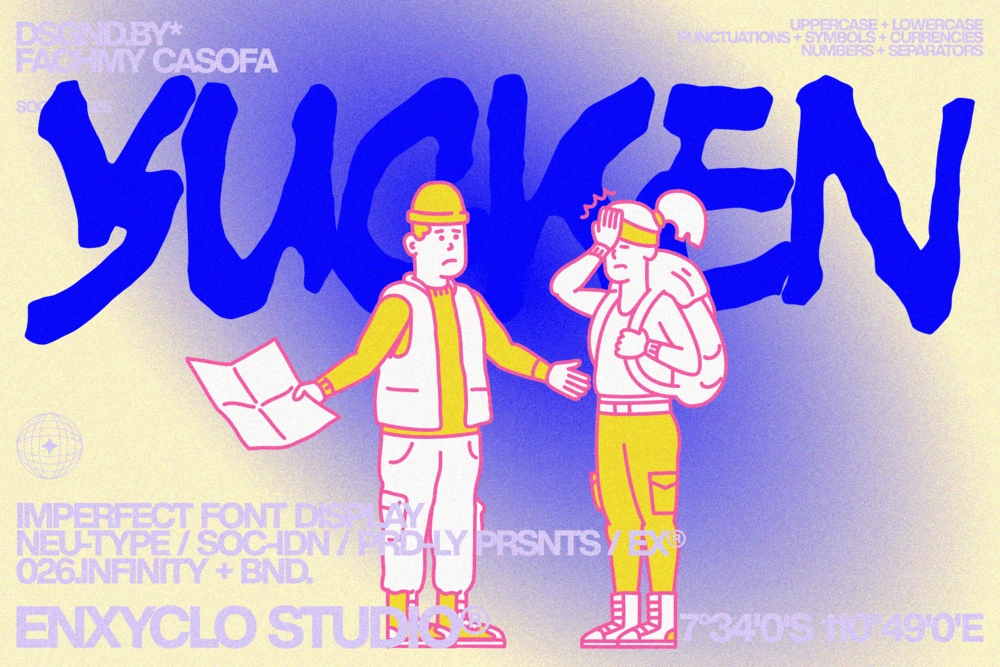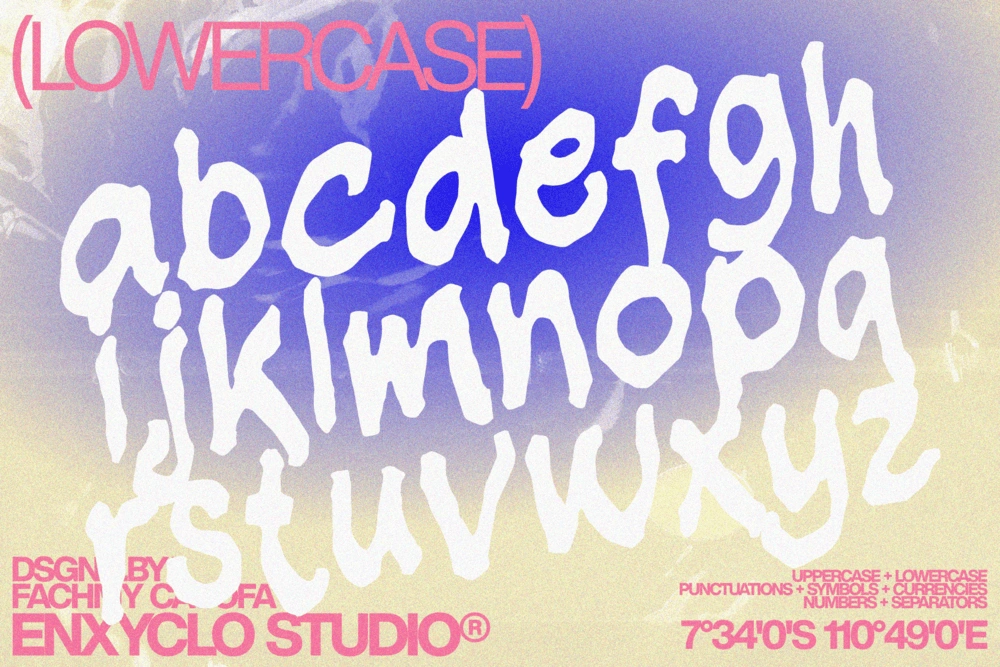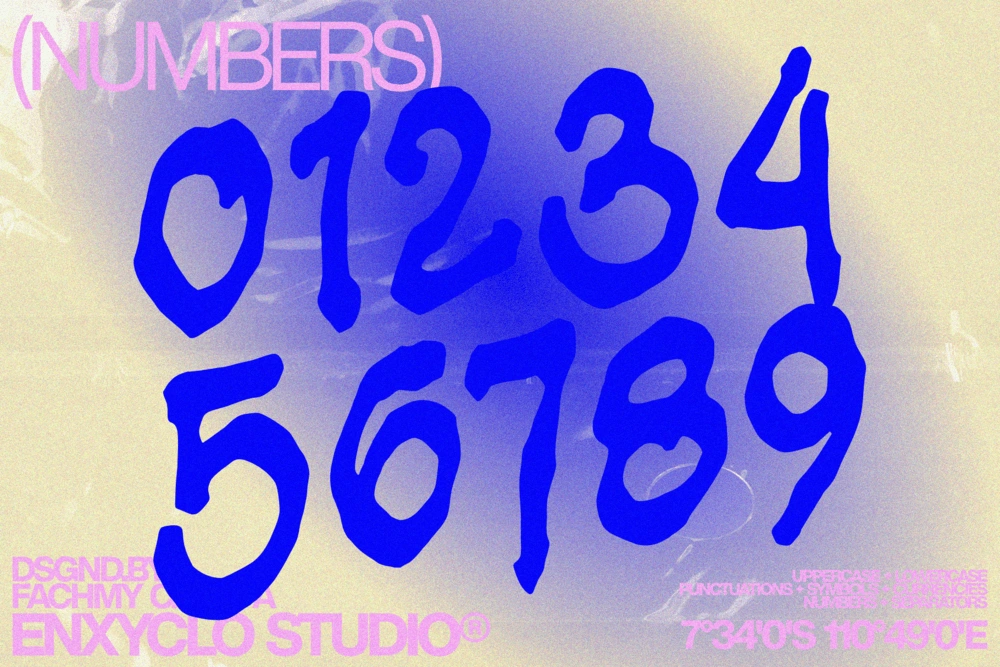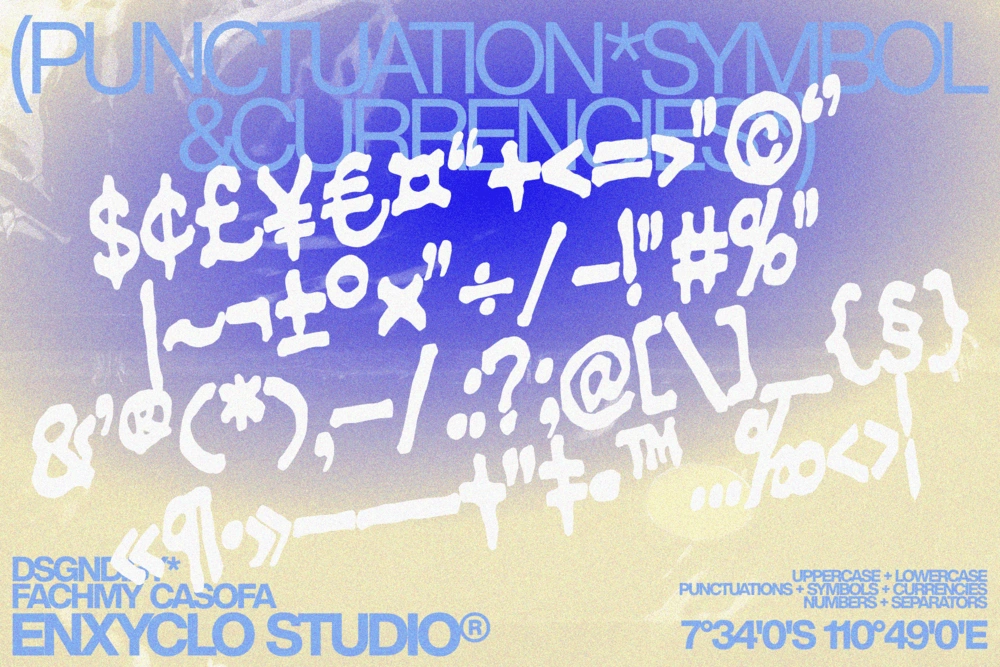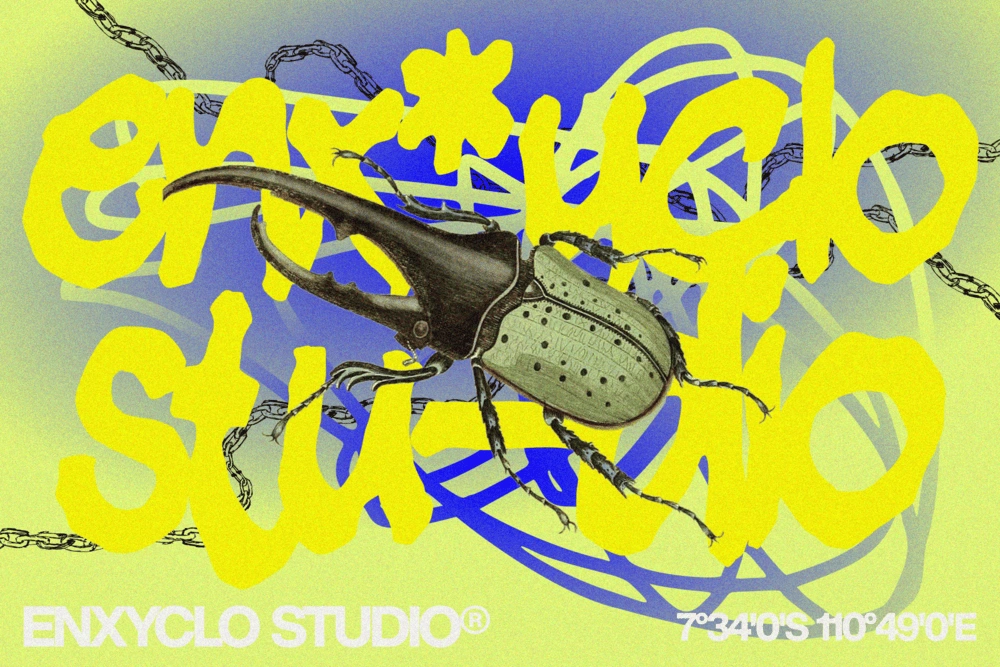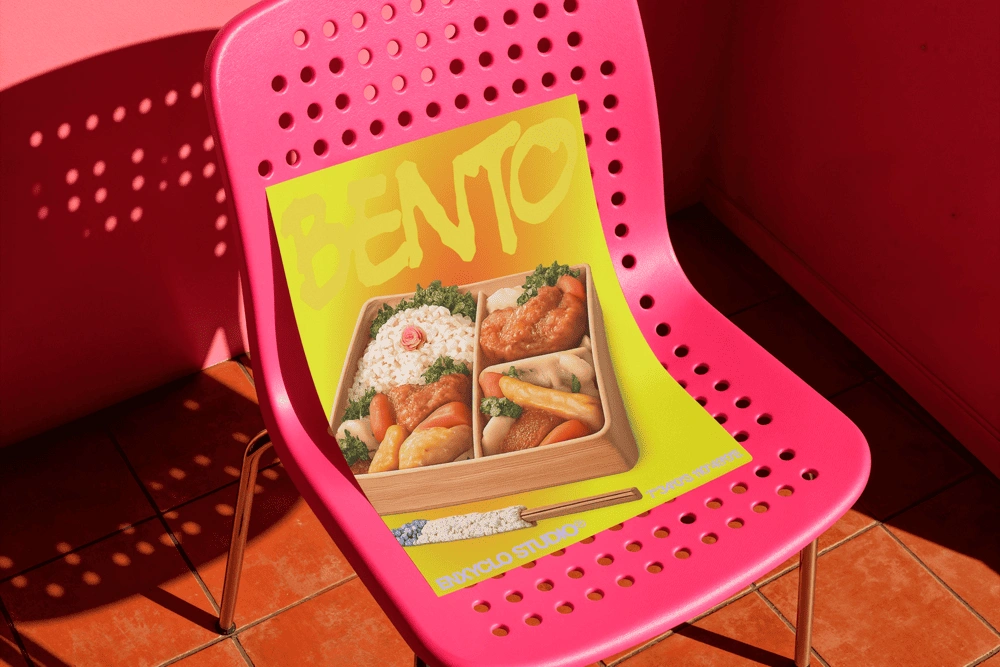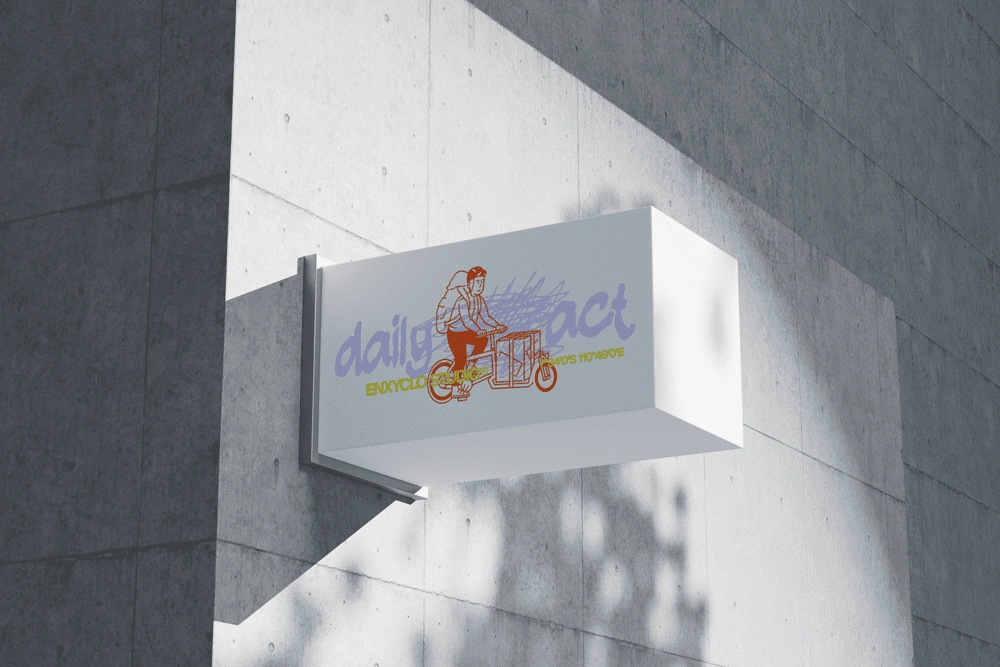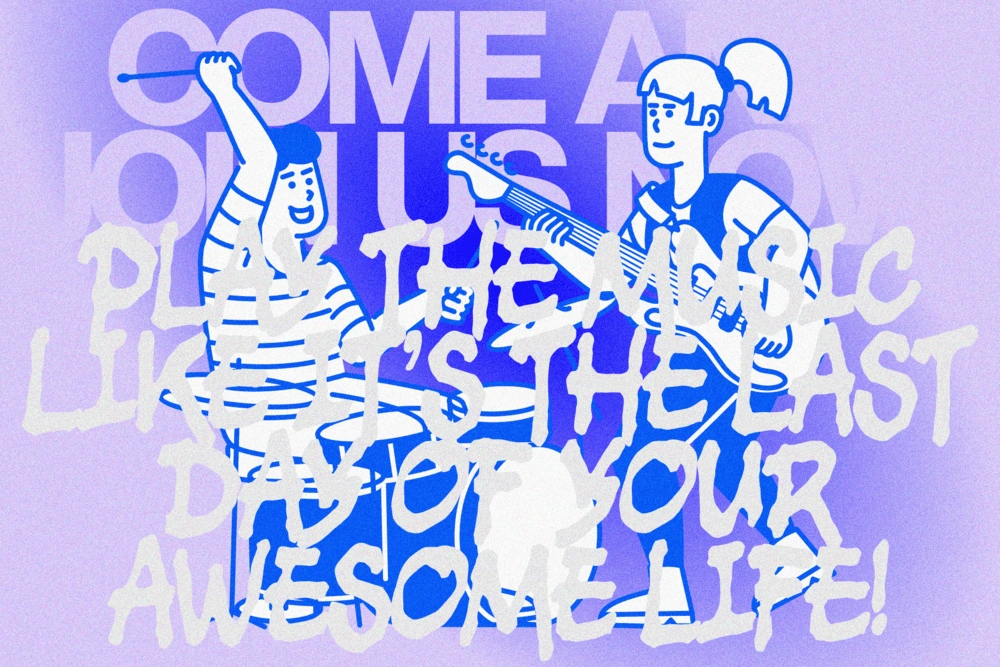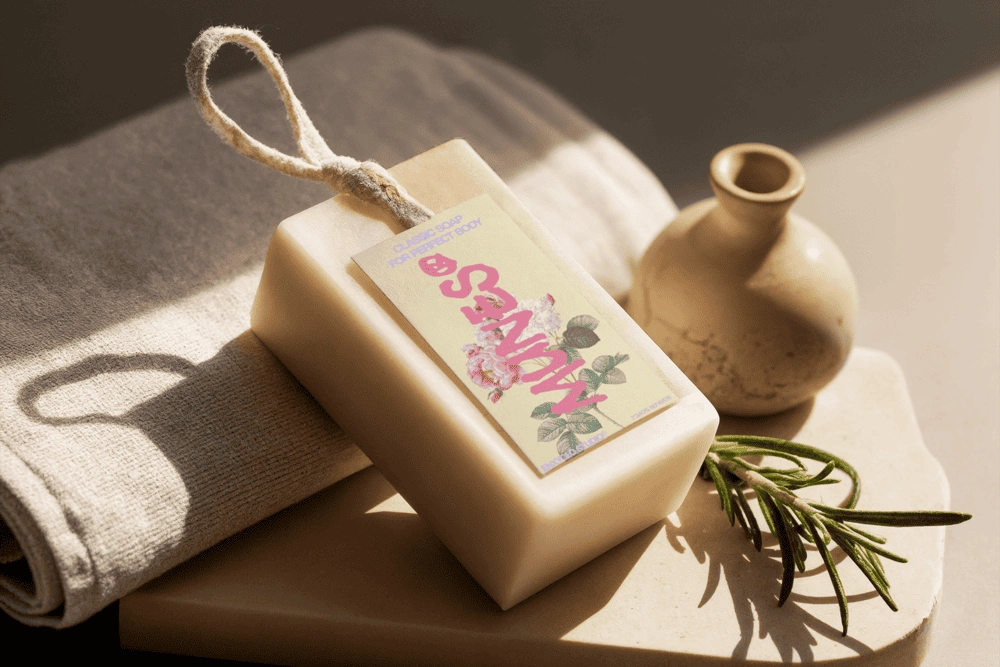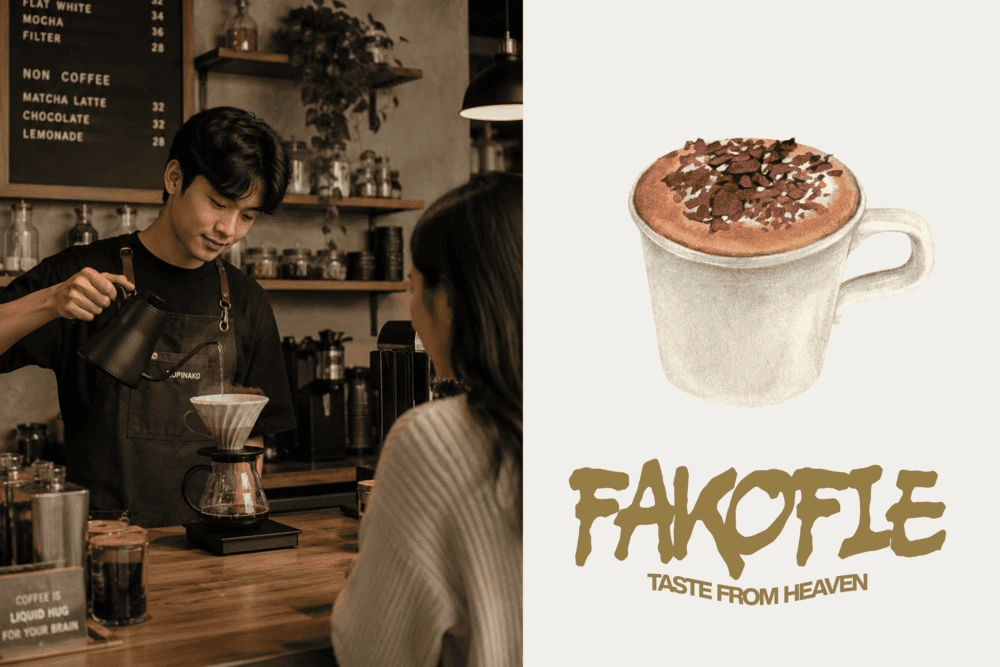
YUCKEN is an imperfect handdrawn modern font created for brands and creatives who want typography with personality, attitude, and an authentic human touch. Built around expressive handwriting and spontaneous strokes, this typeface embraces imperfection as part of its character—bringing a gritty, raw, and contemporary feel to every composition.
Inspired by urban and industrial visual culture, YUCKEN combines rough handdrawn details with a strong modern structure. Its expressive letterforms feel naturally crafted rather than mechanically perfect, making it an excellent choice for bold branding, visual identity, posters, and headlines that need to feel distinctive and full of character.
Whether you’re creating a modern brand identity, an eye-catching poster, an editorial headline, or expressive campaign graphics, YUCKEN adds an authentic handcrafted edge to your designs. It is made for creators who want to move beyond polished typography and embrace something more raw, urban, expressive, and visually memorable.
FEATURE
• Uppercase letters
• Lowercase letters
• Punctuation marks
• Symbol set
• Currency symbols
PERFECT FOR
• Creative logo & logotype design
• Branding & brand identity
• Modern agency visuals
• Contemporary packaging
• Poster & headline design
• Creative campaigns & visual storytelling